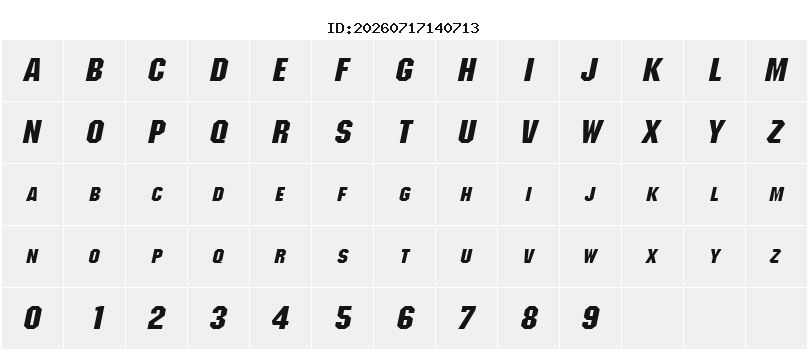
• Font Name: Block Wide
• Font Style: BoldItalic
• Font ID: Altsys Fontographer 4.1 Block Wide BoldItalic
• Full Font Name: Block Wide BoldItalic
• PostScript Name: BlockWideBoldItalic
About Block Wide.ttf
Block Wide.ttf is a modern, elegant sans-serif font designed for ultimate readability and visual harmony. Perfect for branding, headlines, web design, and print materials.